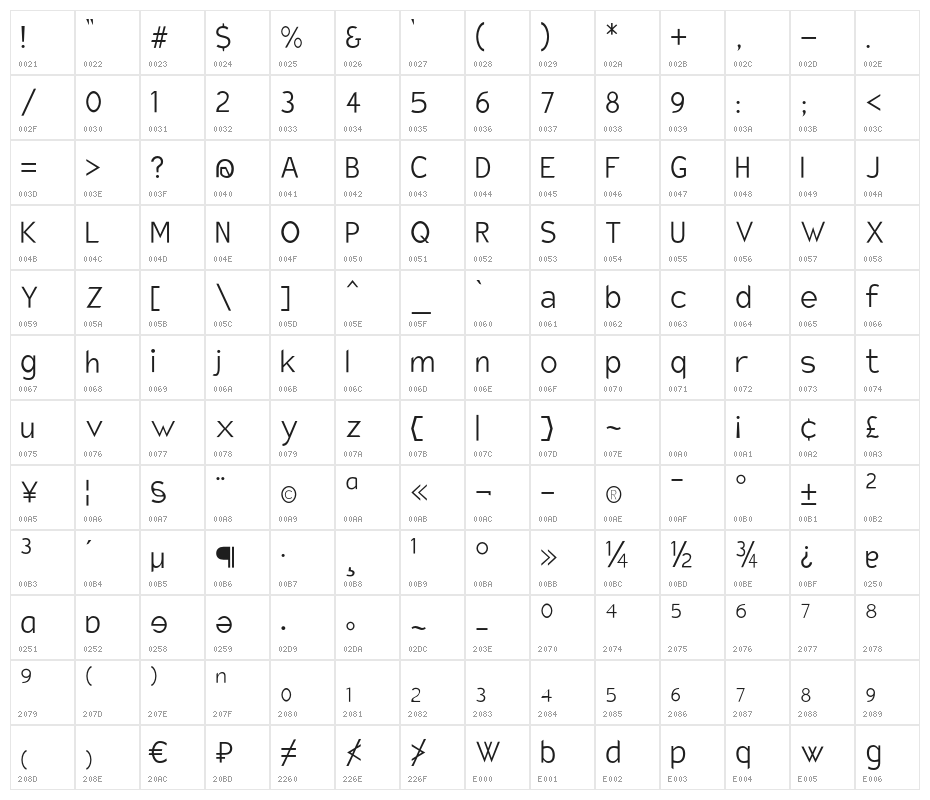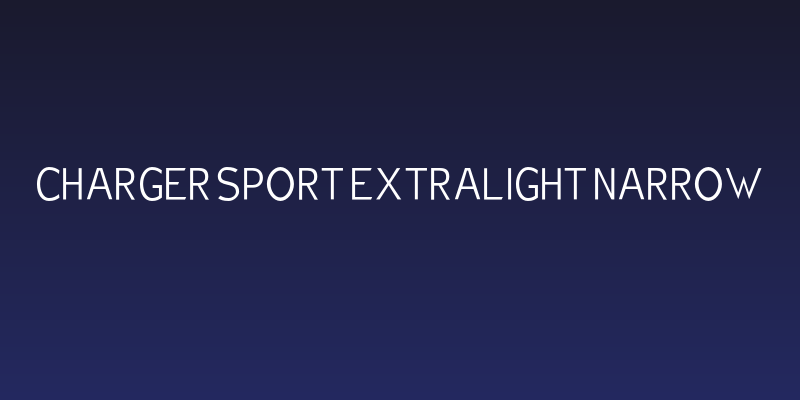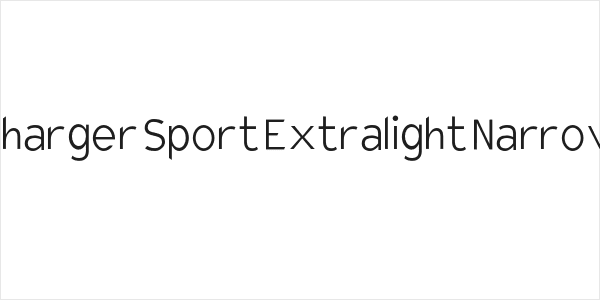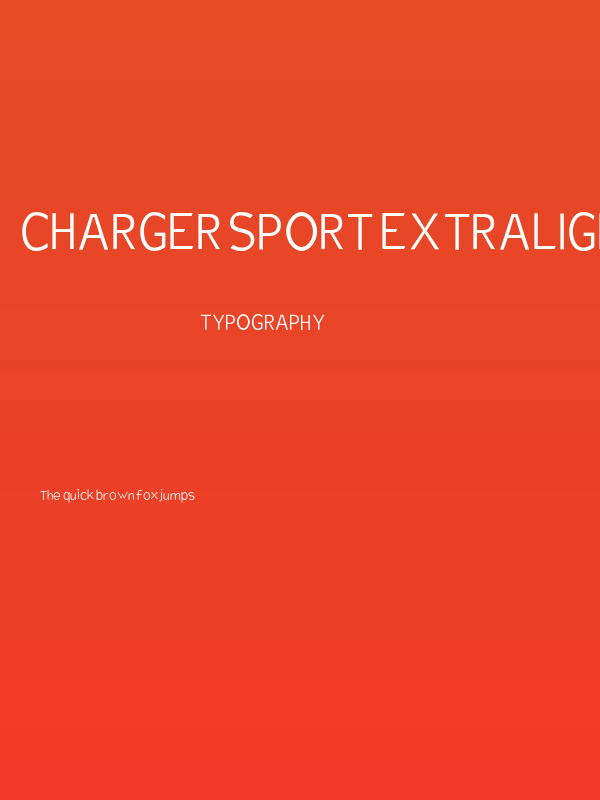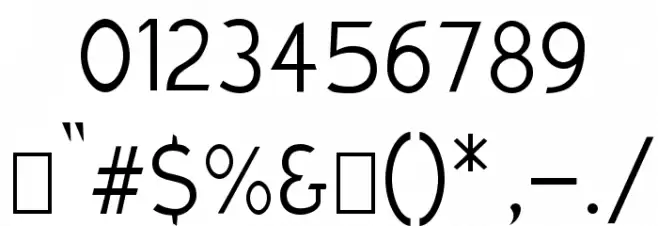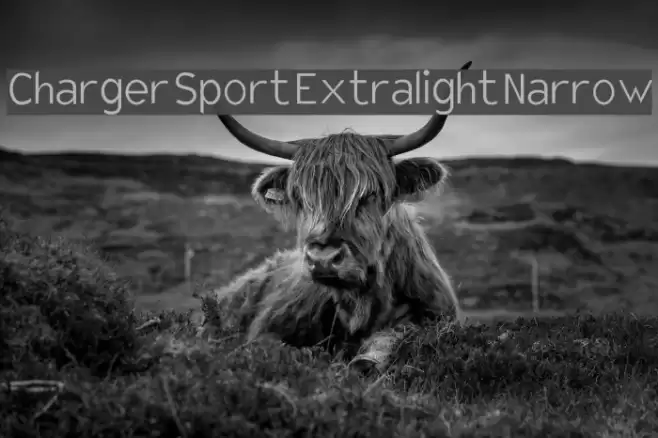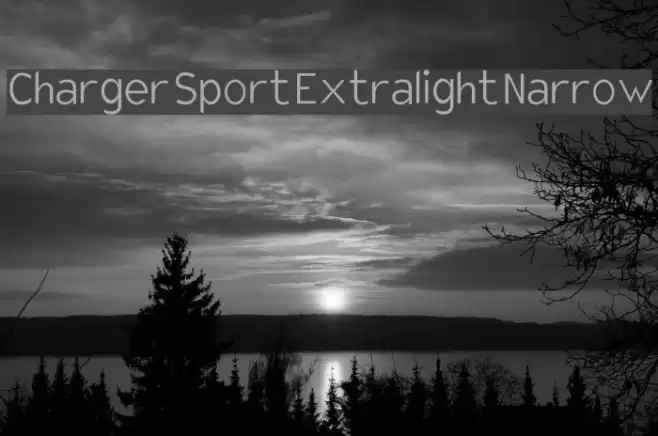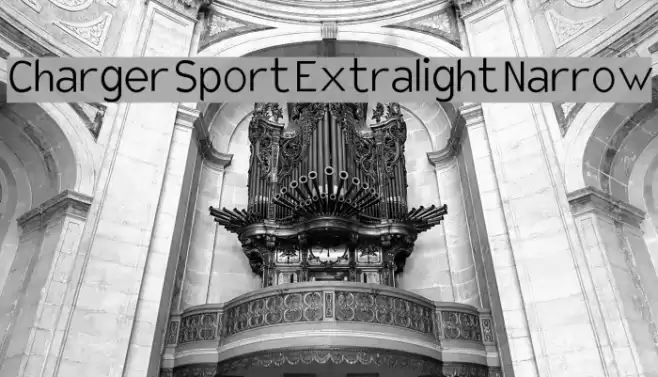
Charger Sport Extralight Narrow Font
Charger Sport Extralight Narrow Description
This font features a sleek and modern design with a clean, sans-serif style. The characters are narrow and elongated, giving a sophisticated and contemporary appearance. The strokes are uniform in weight, contributing to a minimalist aesthetic. The uppercase and lowercase letters are well-proportioned, and the numerals are clear and easy to read. Special characters are included, maintaining the overall style. This font is ideal for projects that require a modern and professional look.
| Proposed Projects | Ideal for branding, advertising, web design, and editorial projects that require a modern and professional appearance. |